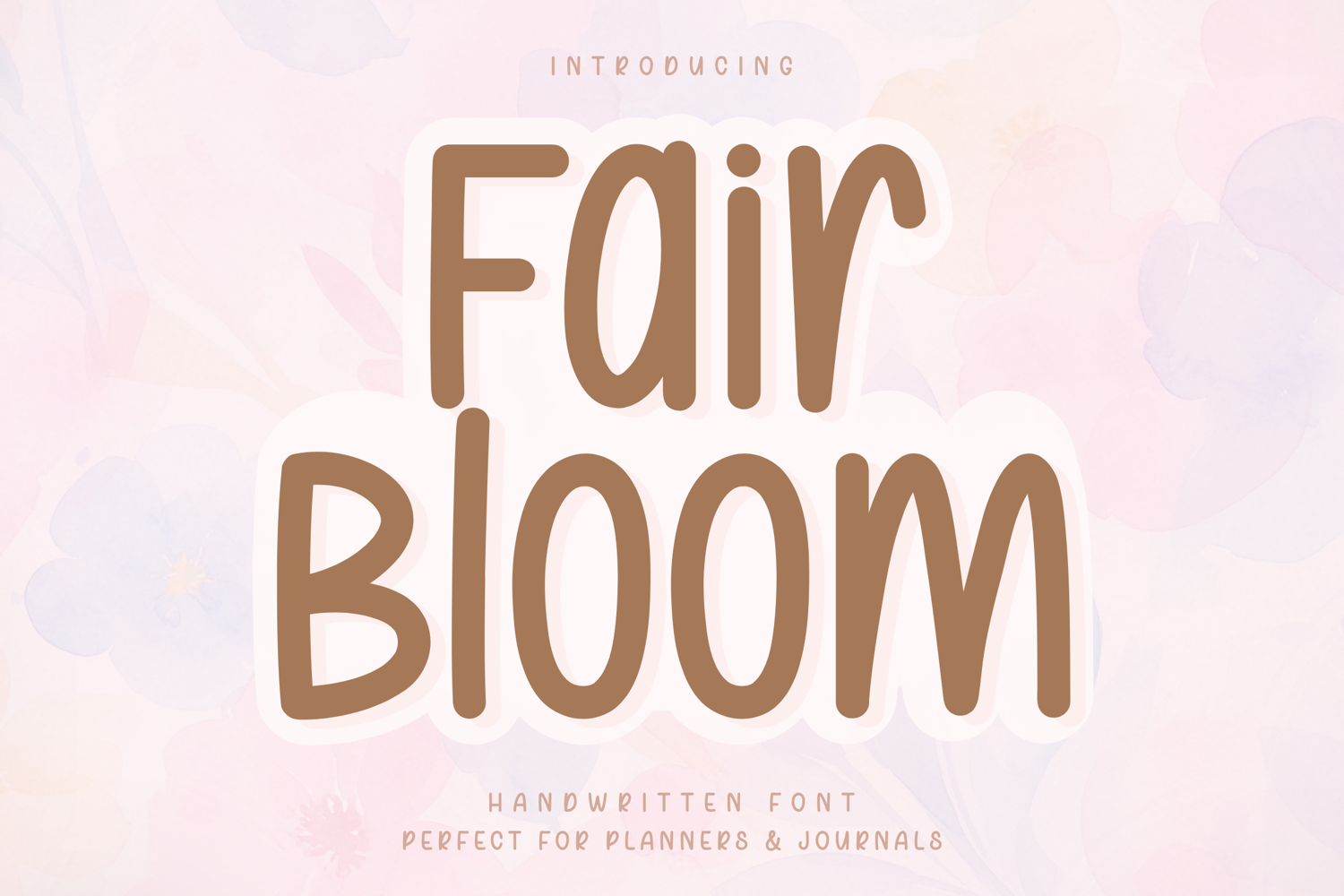
Fair Bloom - Handwritten Font
Fair Bloom – Handwritten Font
Fair Bloom is a soft and elegant handwritten font inspired by gentle floral aesthetics and everyday creativity. With its smooth curves and clean, rounded letterforms, this font creates a natural handwritten style that feels both warm and beautifully minimal.
Designed with a light and feminine touch, Fair Bloom is perfect for projects that need a calm and aesthetic look. It works effortlessly across digital planners, journals, branding, and social media designs, while maintaining excellent readability for daily use.
Sunny Honey is designed with smooth, rounded strokes and balanced spacing, making it easy to use for both beginners and professional designers.